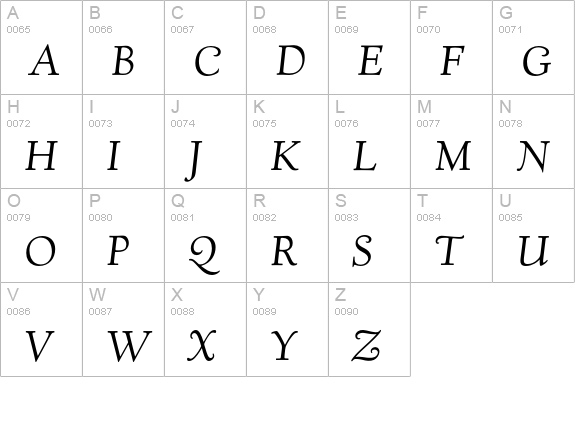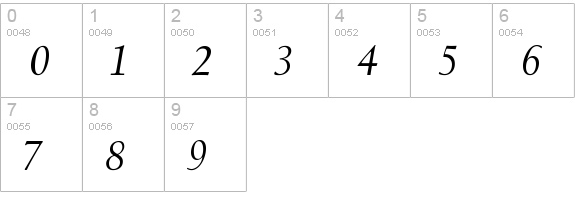
Village-ItalicSmallcaps font is a captivating and stylish typeface that effortlessly combines elegant curves and a touch of playfulness. Designed with a unique blend of sophistication and modernity, this font is perfect for adding a touch of class to any project. With its petite and slanted small caps, Village-ItalicSmallcaps font exudes a sense of charm and sophistication. The slender strokes and delicate letterforms create a harmonious balance, making it a versatile choice for various design applications. Whether you are working on invitations, logo designs, headlines, or any creative project that requires a touch of elegance, Village-ItalicSmallcaps font is the perfect companion. Its timeless appeal and distinctive character will ensure that your designs stand out from the crowd. One of the best things about Village-ItalicSmallcaps font is that it is freely available to download at FontsMarket.com. This means that you can easily access and use this font for your personal and commercial projects without any restrictions. So, whether you are a professional designer or just starting your creative journey, Village-ItalicSmallcaps font is a valuable addition to your font library. Download Village-ItalicSmallcaps font today from FontsMarket.com and experience the beauty and versatility of this stunning typeface. Elevate your designs with its graceful and unique style, and leave a lasting impression on your audience.